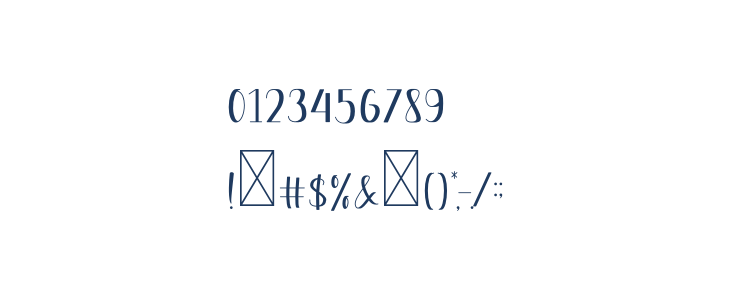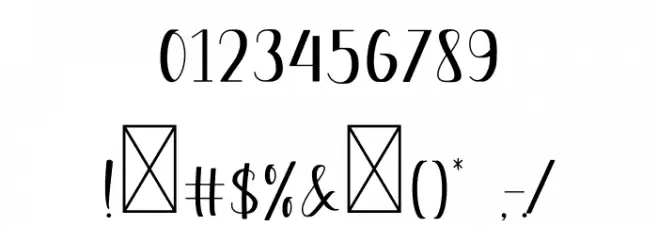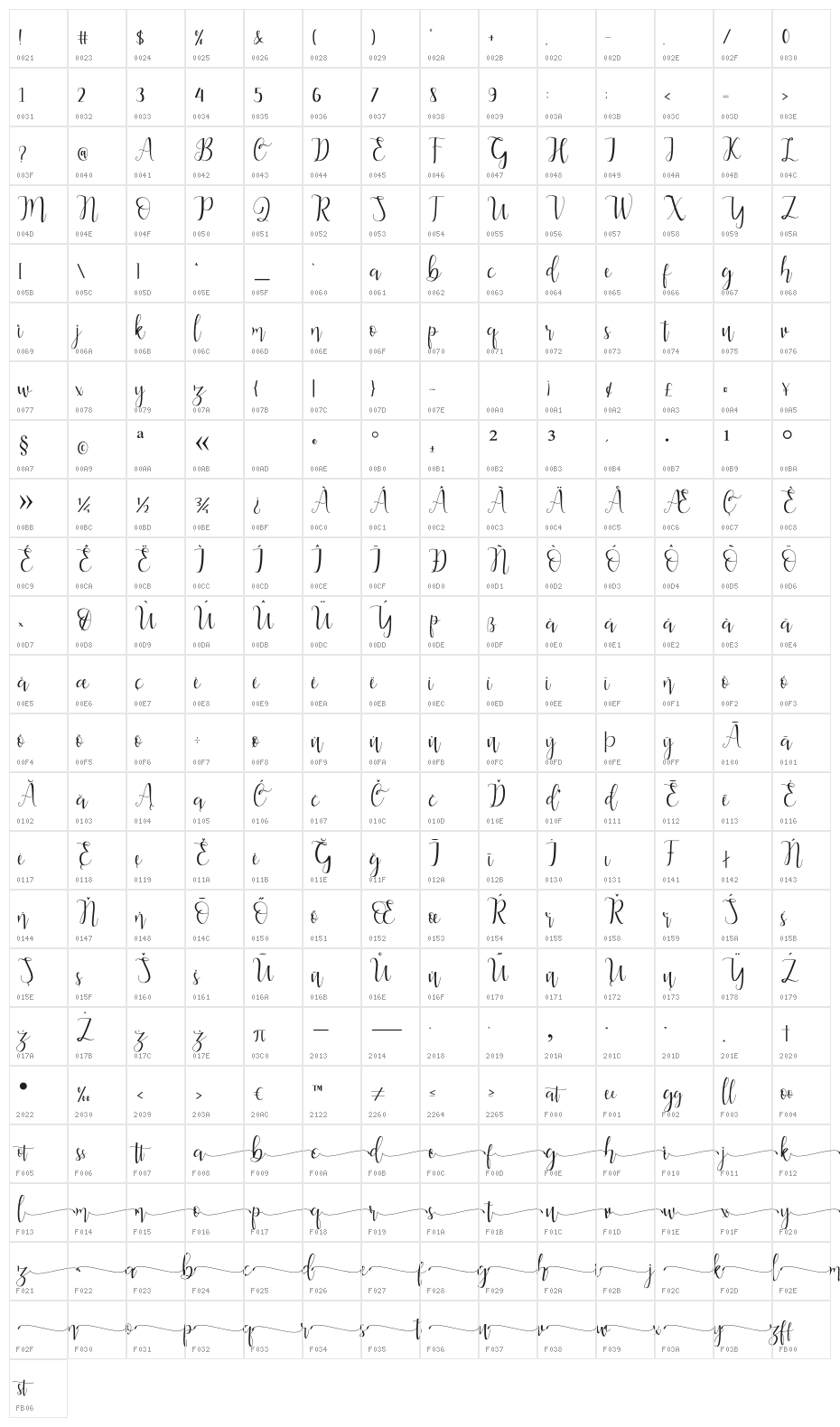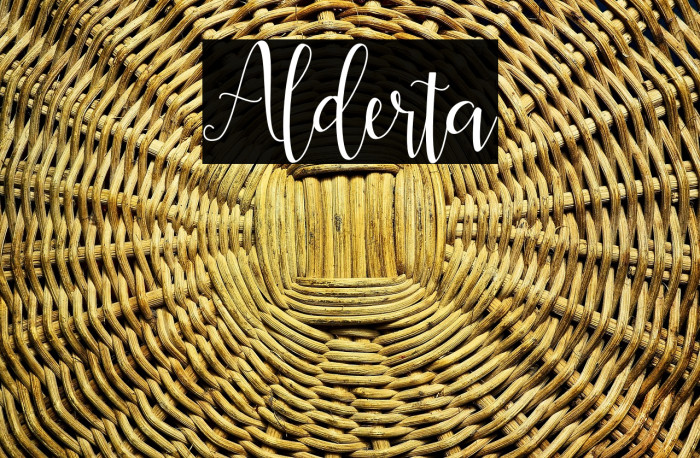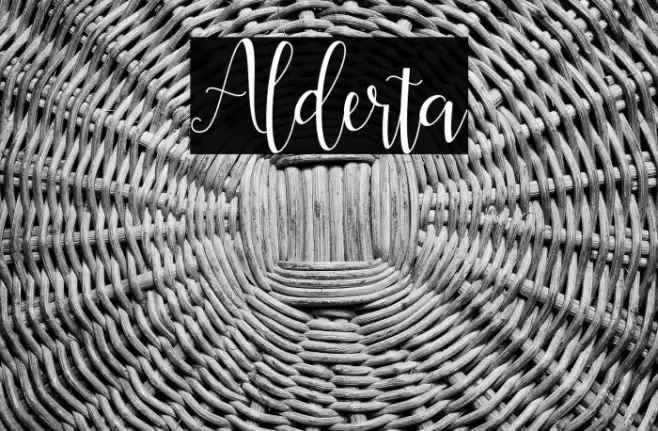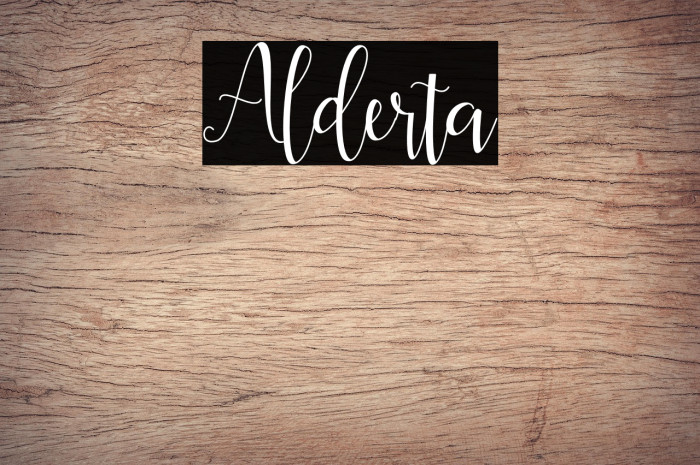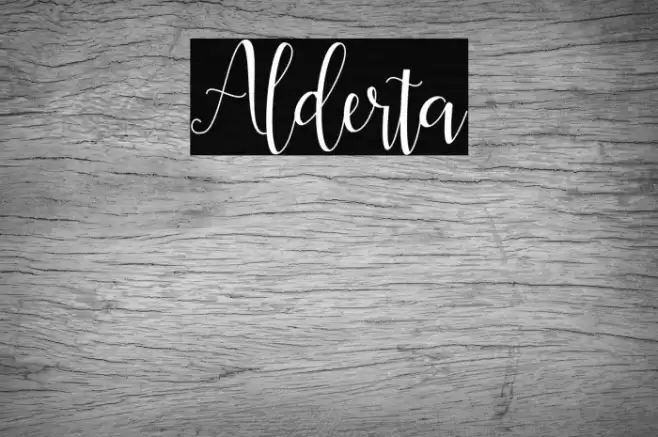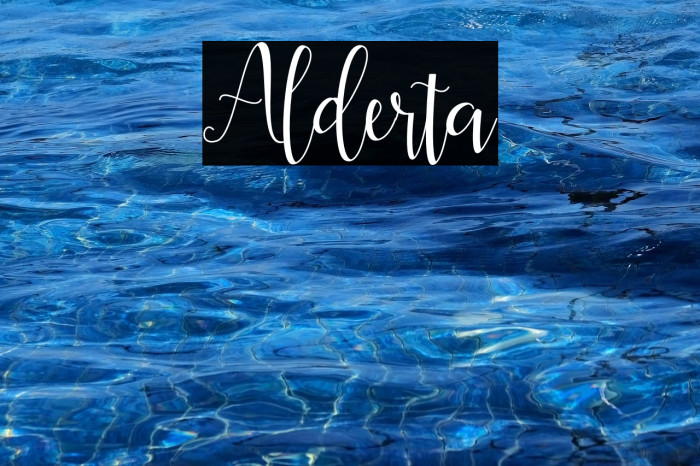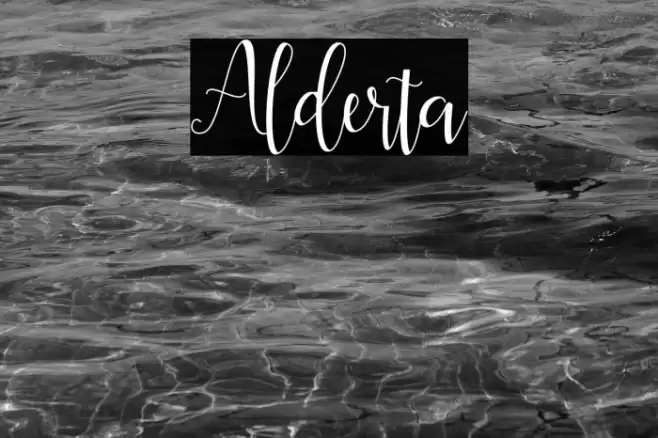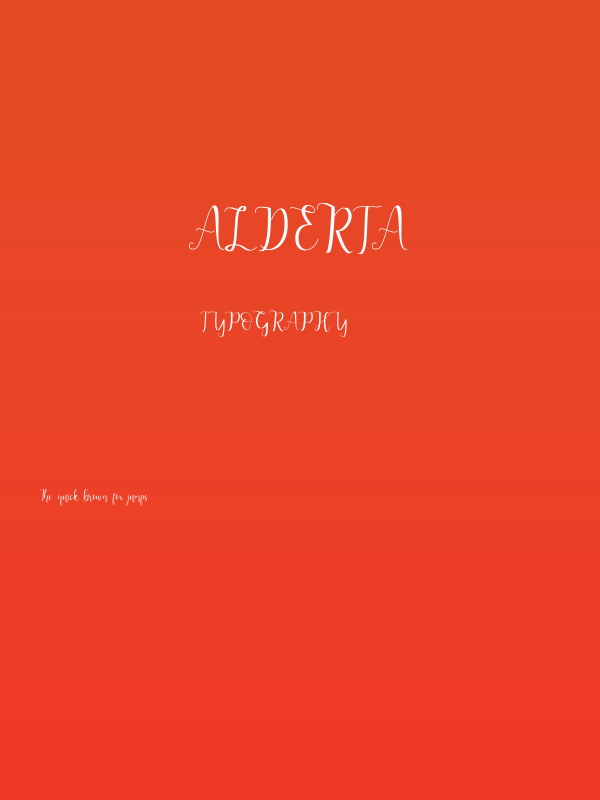
Alderta Font
Alderta Description
This font showcases a beautiful, flowing script style with elegant curves and a handwritten feel. The uppercase letters are characterized by their tall, graceful strokes, while the lowercase letters maintain a consistent, fluid motion. The numerals are clear and distinct, complementing the overall aesthetic. Special characters are designed with the same attention to detail, ensuring a cohesive look throughout. The font's artistic flair makes it suitable for creative projects that require a personal touch.
Use CaseLogos, Invitations, Greeting Cards
Proposed ProjectsIdeal for wedding invitations, greeting cards, branding, and logos that require a personal, elegant touch.